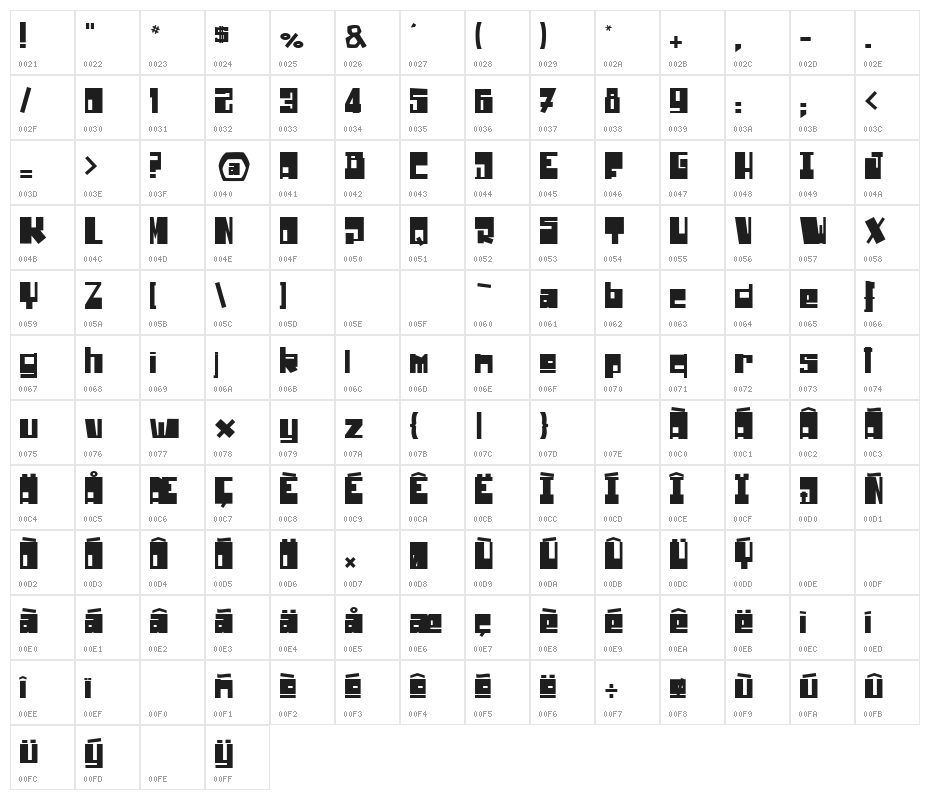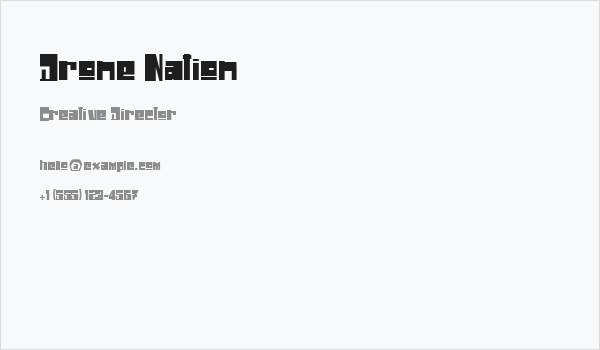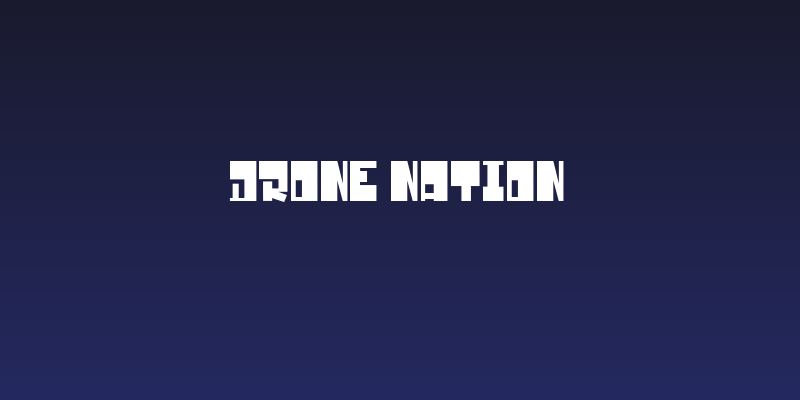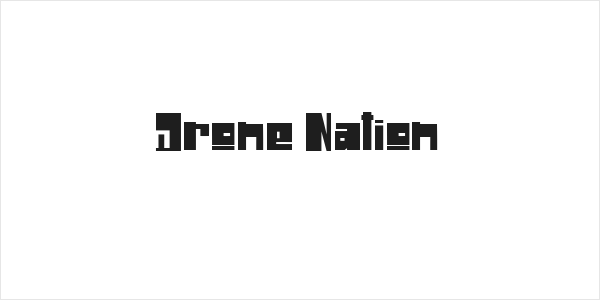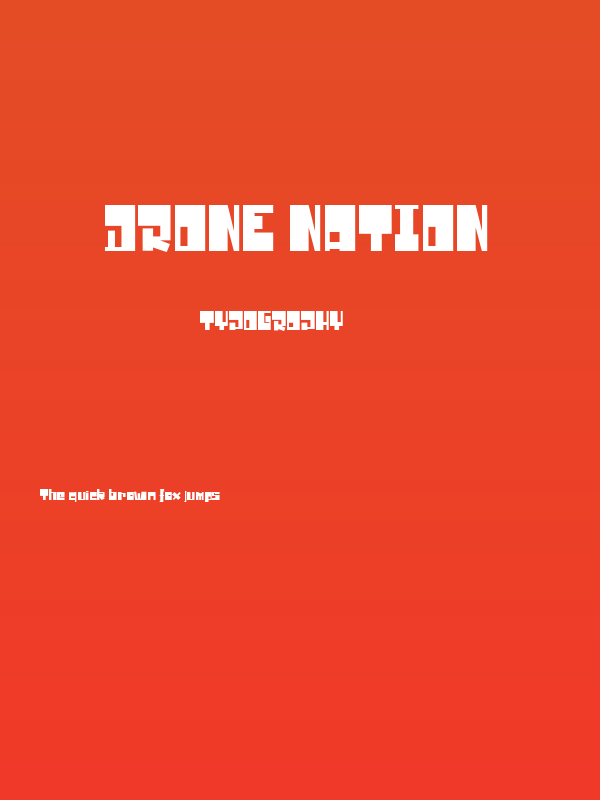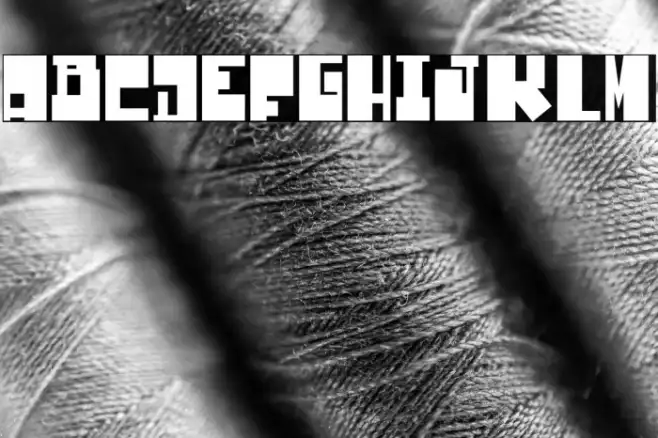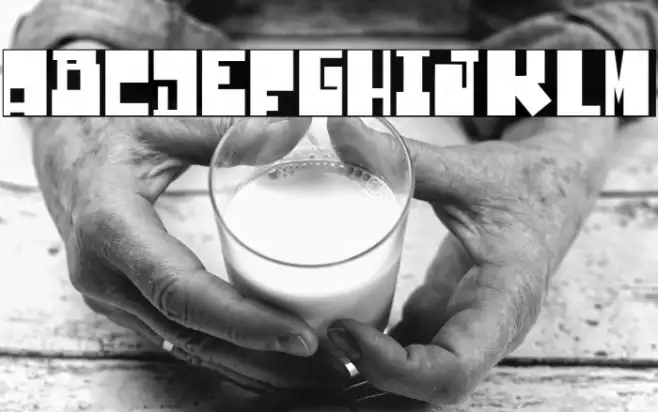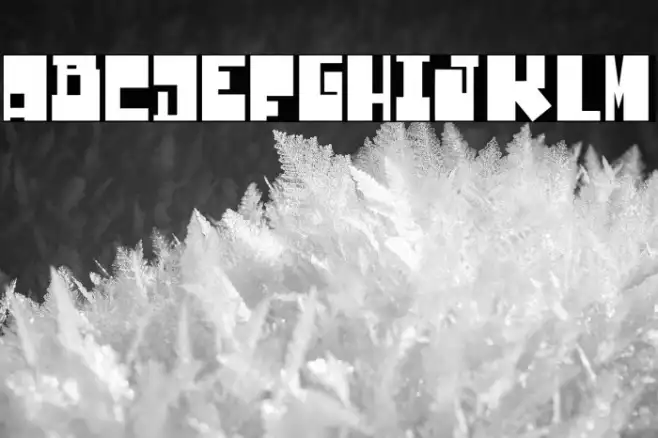
Drone Nation Font
Drone Nation Description
This font features a bold, geometric design with sharp angles and a blocky appearance. The characters are constructed with a modern, futuristic aesthetic, making use of straight lines and angular cuts. The uppercase and lowercase letters maintain a consistent style, with a strong emphasis on symmetry and uniformity. Numbers and special characters follow the same design principles, ensuring a cohesive look across all elements. The font's boldness and unique style make it stand out, ideal for projects that require a strong visual impact.
| Proposed Projects | Ideal for branding, posters, video game graphics, and futuristic-themed designs. |